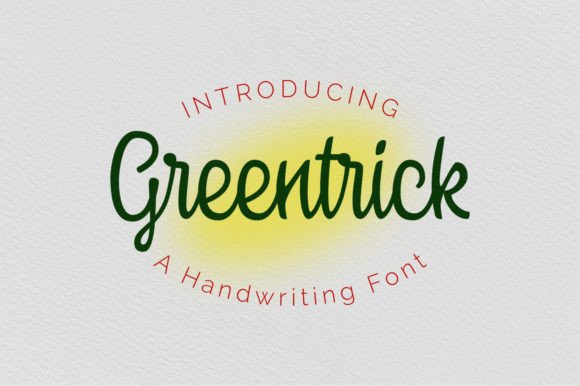
Introducing Greentrick Font, a remarkable creation from Constructype Studio, designed to captivate and inspire your artistic vision. Greentrick is not just a font; it's an experience that breathes life into your designs, transforming them into captivating masterpieces. Immerse yourself in the allure of its elegant strokes, each letter a testament to the beauty of handwritten artistry.
With Greentrick, you hold the key to unlocking a world of creative possibilities. Its modern and graceful style lends an air of sophistication and individuality to every project it graces, making it the perfect choice for those seeking a touch of exclusivity and elegance. Whether you're crafting stunning logos, eye-catching posters, or captivating social media graphics, Greentrick is your perfect companion.
This PUA-encoded font opens up a realm of boundless creativity, granting you access to a treasure trove of glyphs, ligatures, and alternates. Unleash your imagination and explore the endless possibilities as you mold Greentrick to perfectly suit your unique vision.
Greentrick is more than just a font; it's a gateway to a world of limitless expression. Let your creativity flourish and embark on a journey of artistic discovery with Greentrick as your faithful guide. Transform your designs into works of art, leaving a lasting impression on all who behold them. Elevate your projects to new heights of sophistication and charm, and let Greentrick ignite the flame of your creative passion.